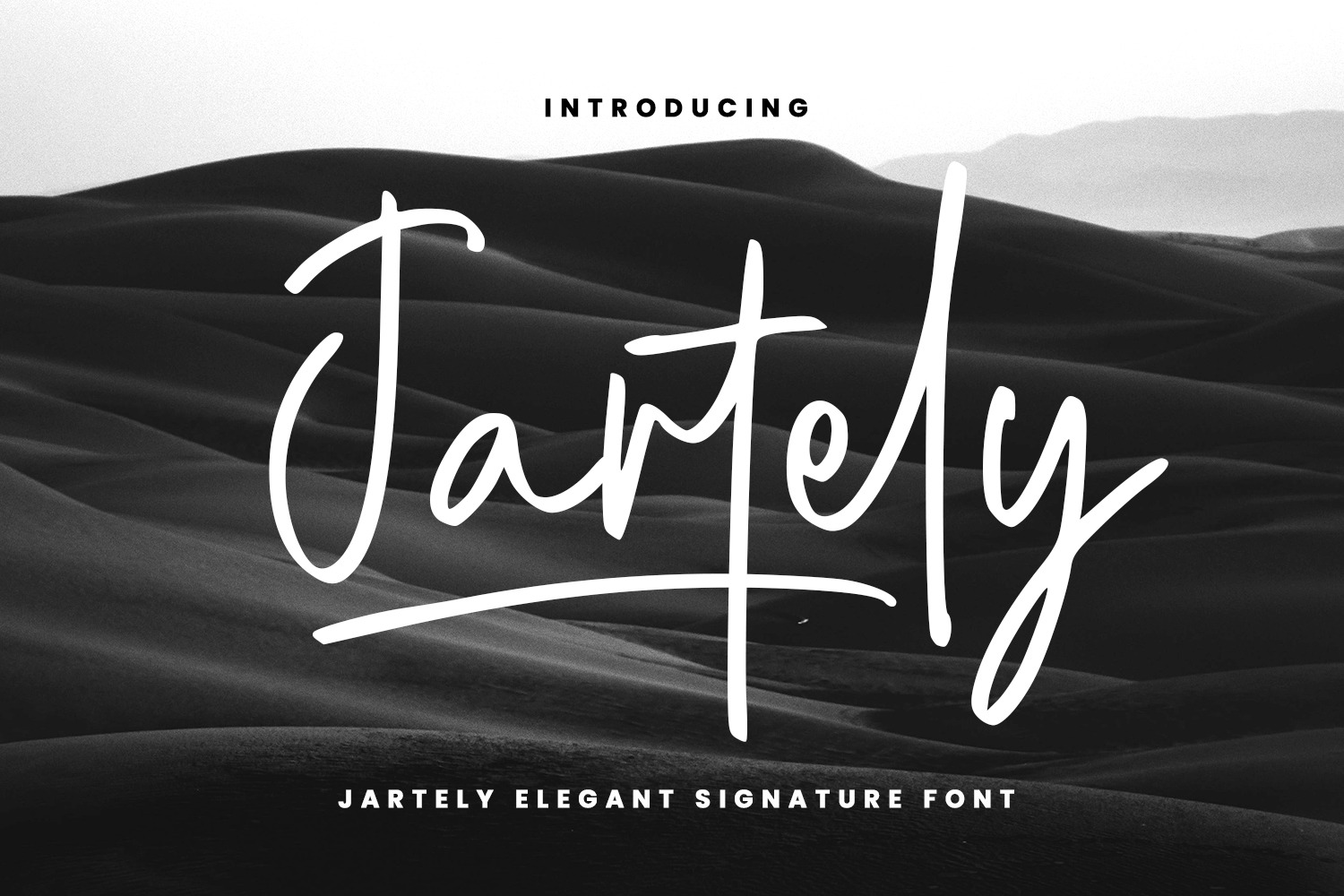
Jartely Font
Jartely is a modern and awesome handwriting font with a natural style. This font is suitable for your current or classic design: Signature. Logo. Branding. Invitation. Blog Headline and many more.
- Numbers and Punctuation
- Underlines